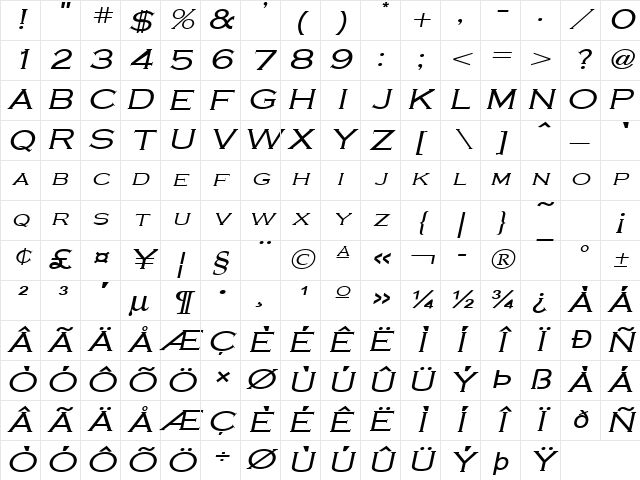
Complete Cobalt-Extended Italic glyph index. Displaying only characters natively supported by Cobalt-Extended Italic font.
Cobalt-Extended is a composed and adaptable typeface that performs quietly and consistently across a wide range of design contexts. The slanted form adds forward momentum and visual energy.